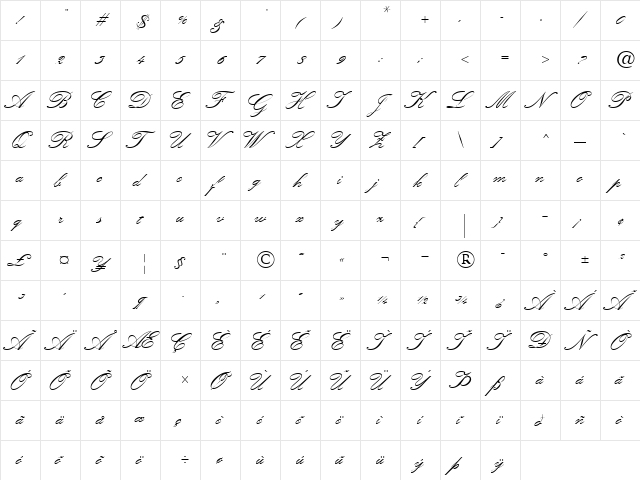
KuenstlerScriptTwo Bold Font Preview
Design Context for KuenstlerScriptTwo Typeface
KuenstlerScriptTwo brings a calligraphic fluidity to the page — its connecting strokes and expressive curves give it an unmistakably human quality. The heavy weight commands attention and anchors typographic hierarchies.
Font Pairing: Combine KuenstlerScriptTwo with a simple geometric sans for maximum contrast — the tension between flowing curves and clean structure is a classic typographic pairing.
Pro Tip: Pair KuenstlerScriptTwo with a clean sans-serif for supporting text. The contrast between fluid script and geometric structure creates an elegant typographic hierarchy.